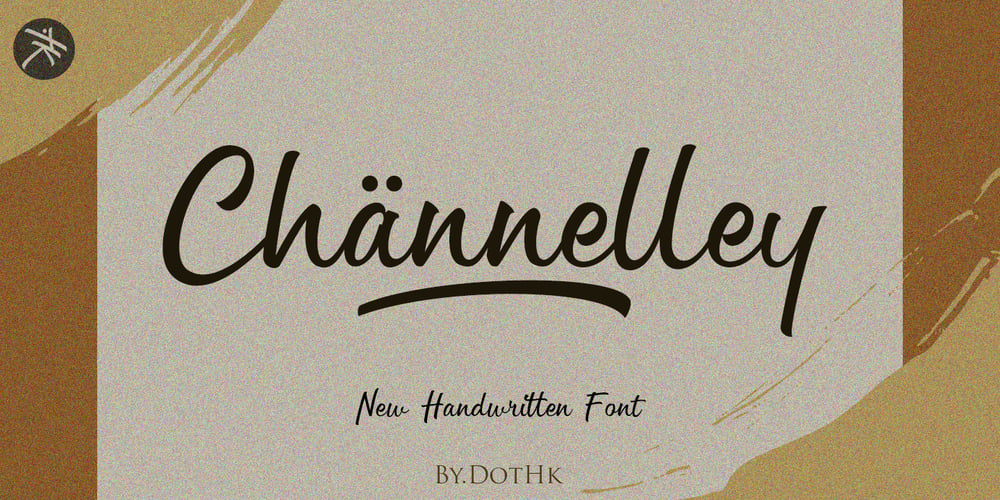
Channelley Script Font Family was designed by Ariefr Munandar and published by dotHK Studio. Channelley Script contains 1 styles and family package options. Channelley is a casual and clean brush script font. It has a trendy style and it will be a tremendous hit for each of your branding, product packaging, invitations, quotes, t-shirts, label, poster, logos or anything else that you wish to design.